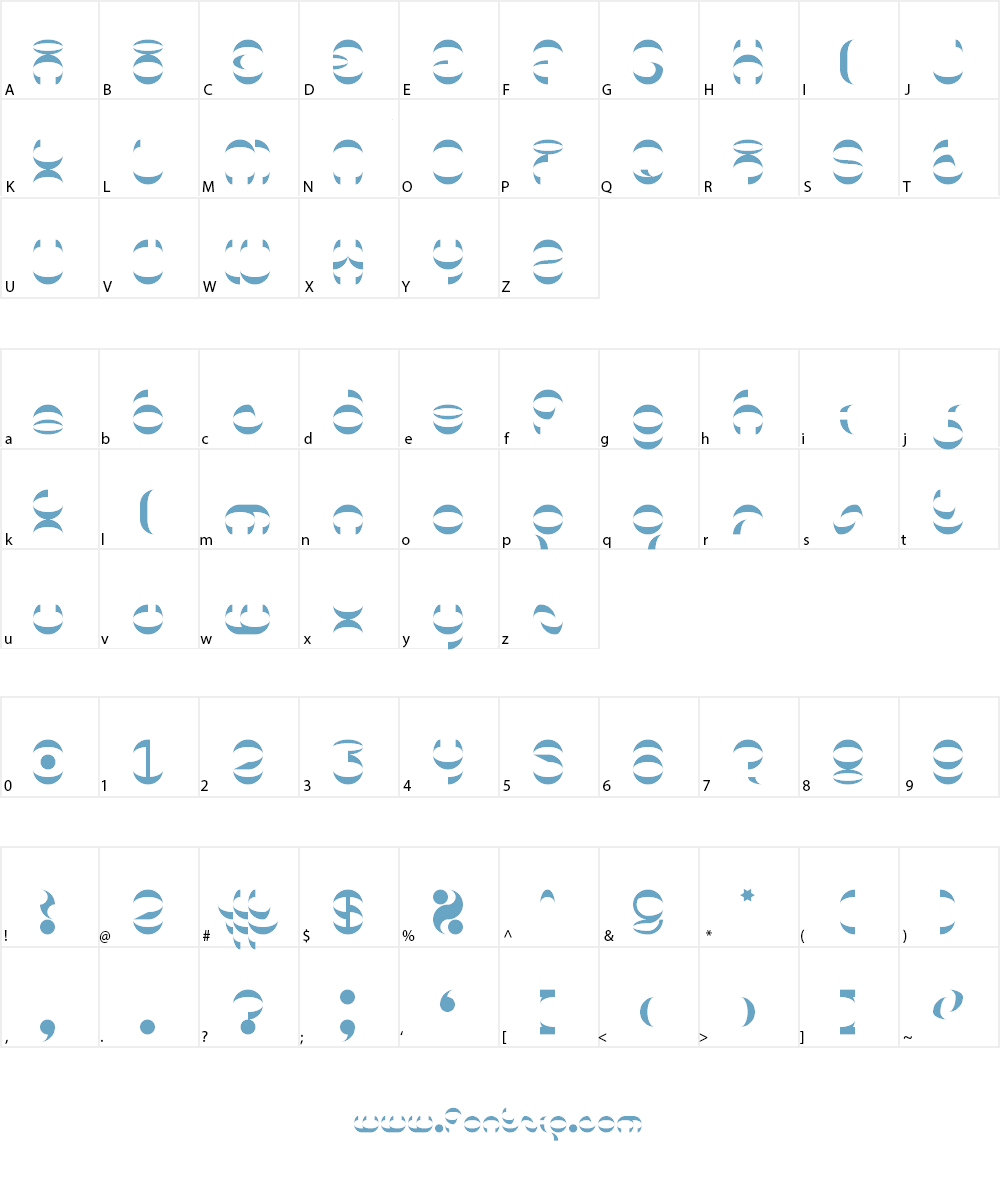
A bizarre experimental design I created in 2018.
Supports Danish, Dutch, English, Finnish, French, German, Hungarian, Icelandic, Italian, Norwegian, Portuguese, Spanish, and Swedish!